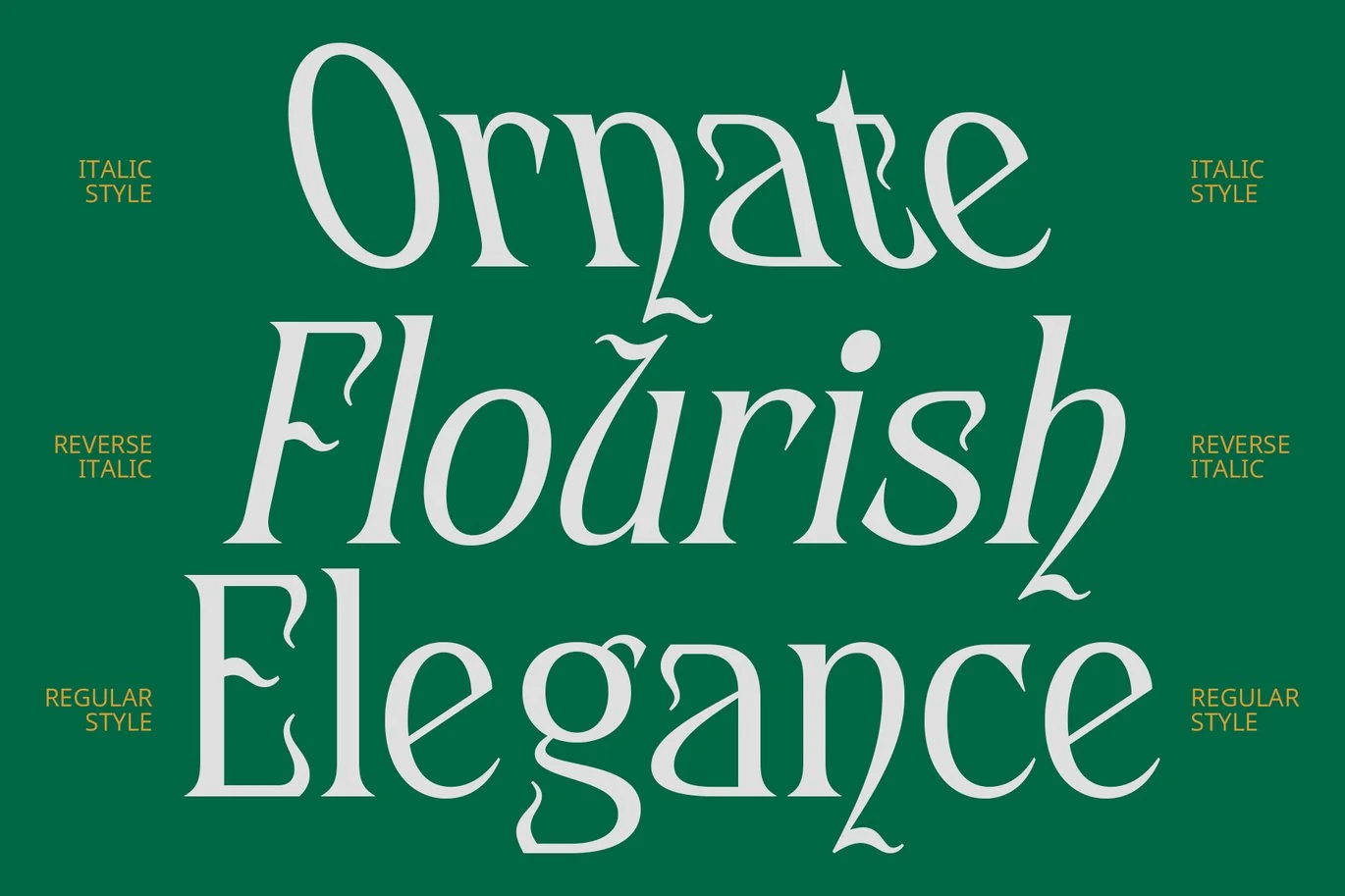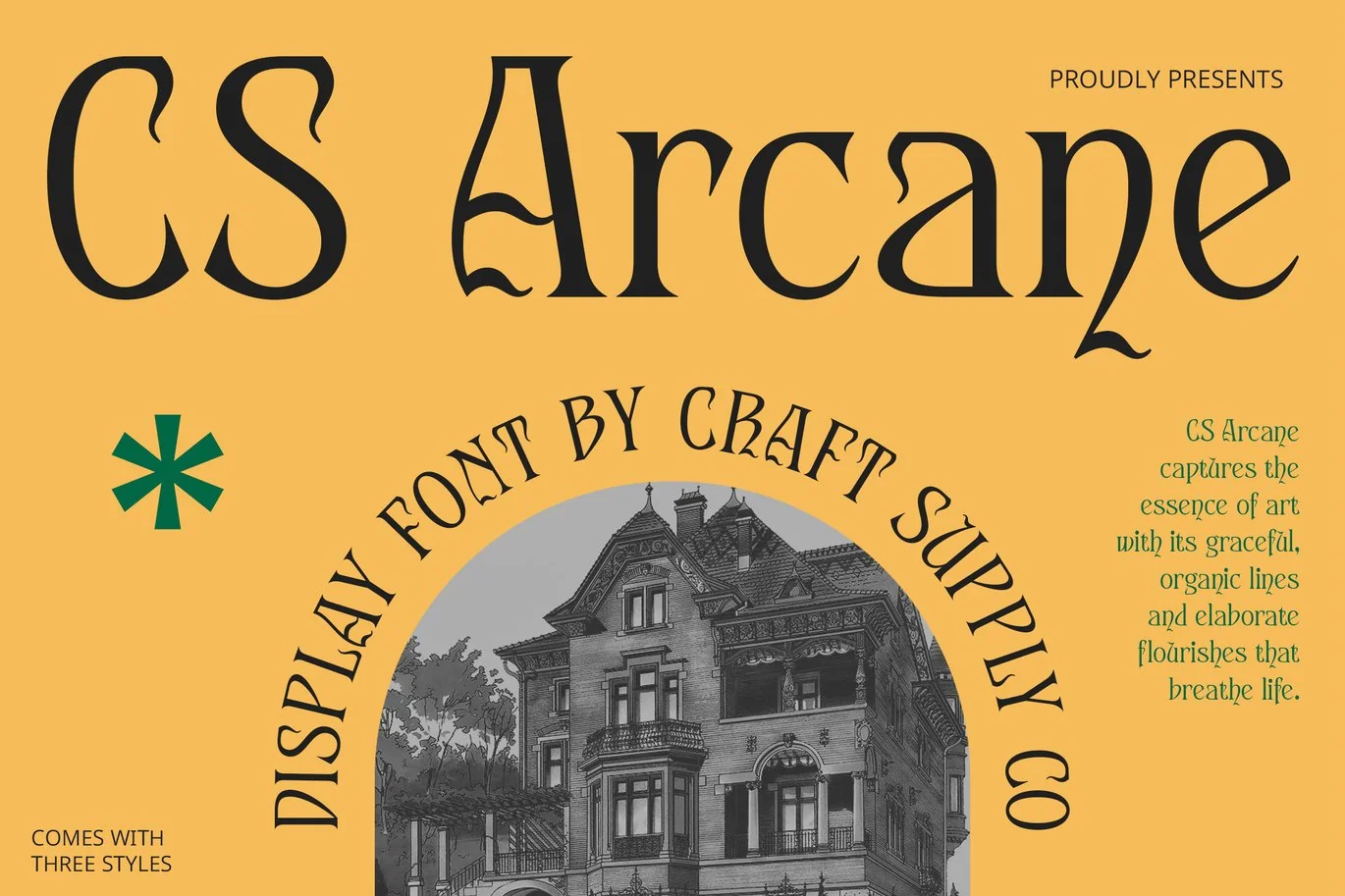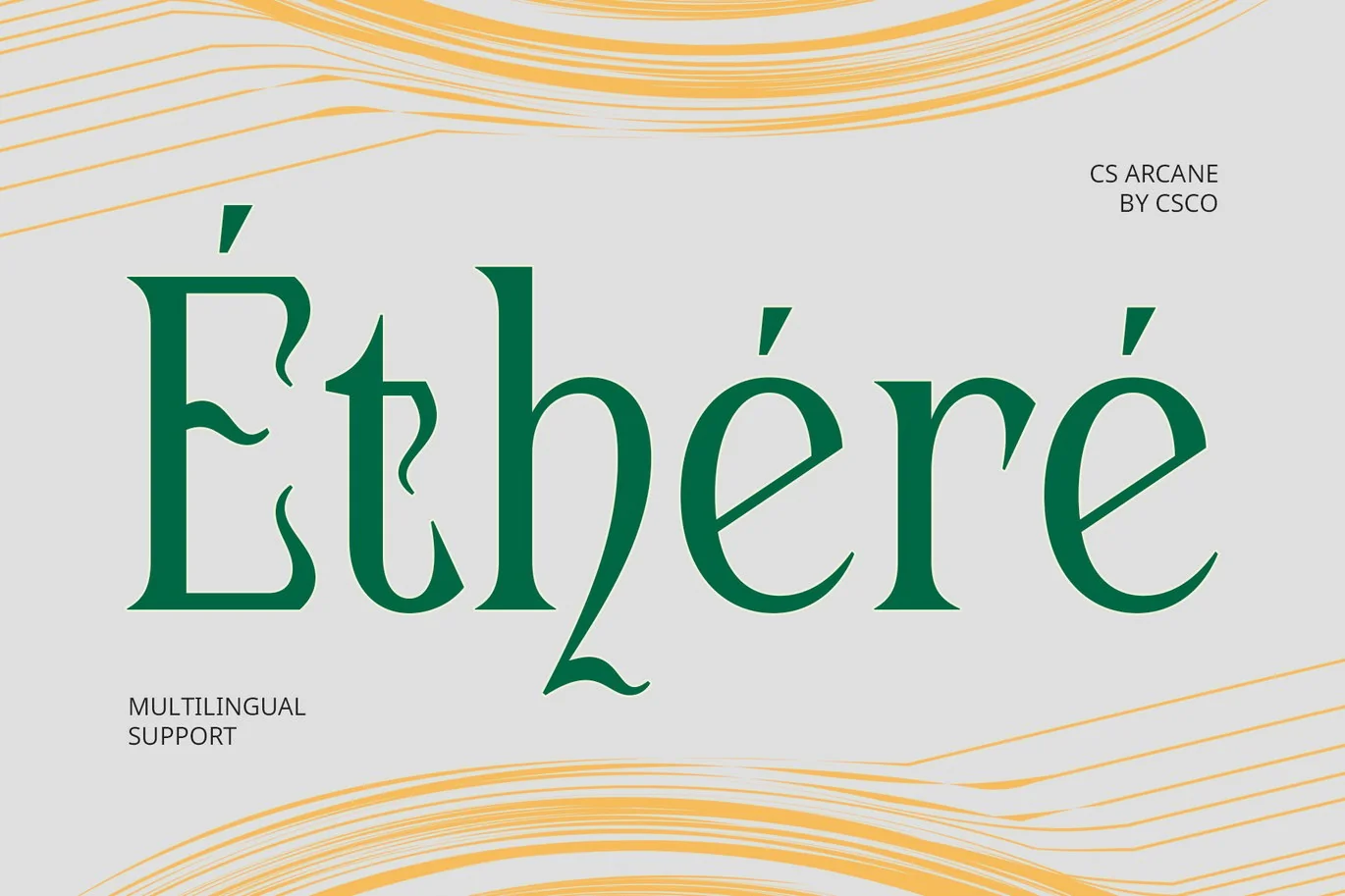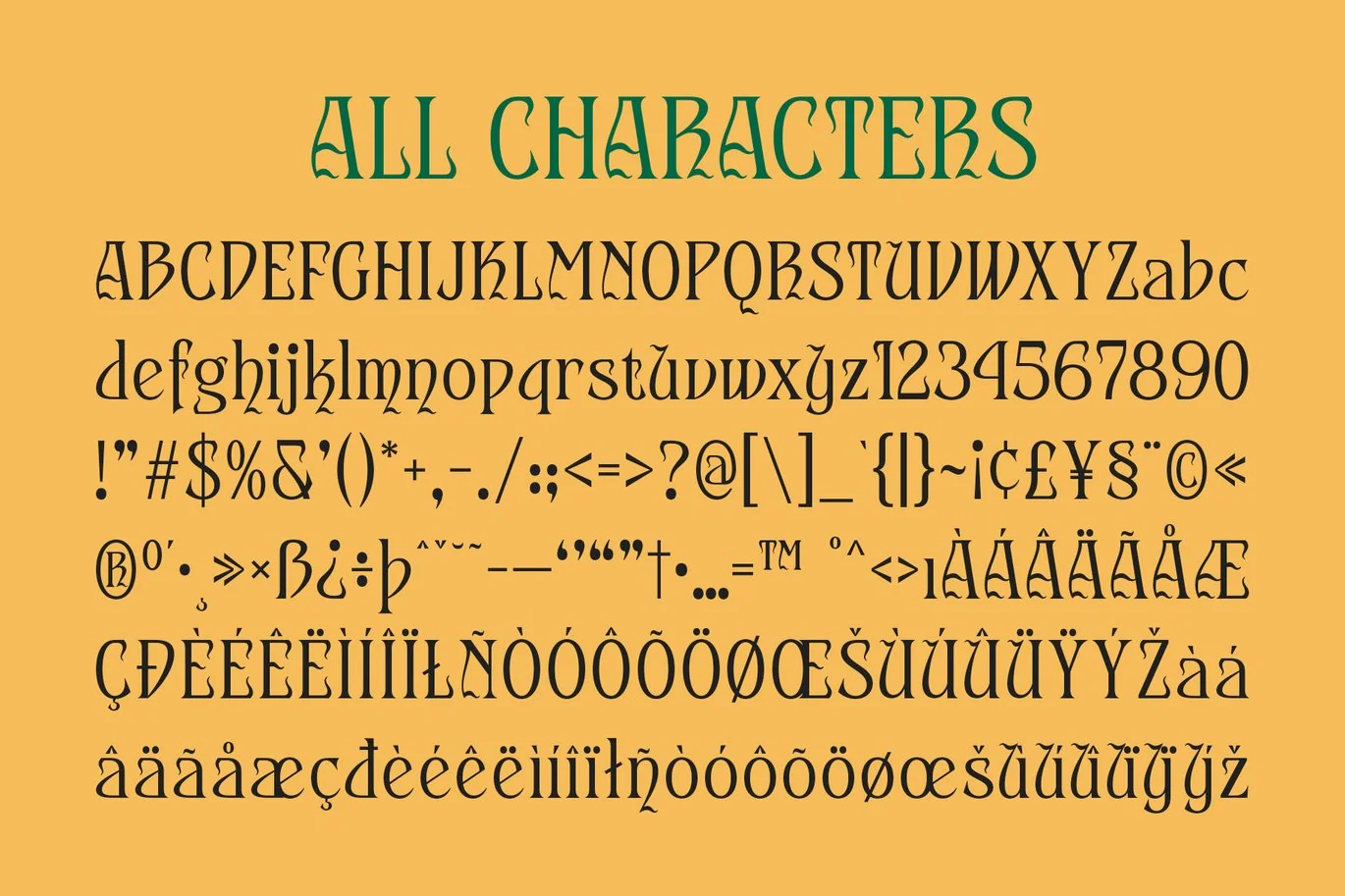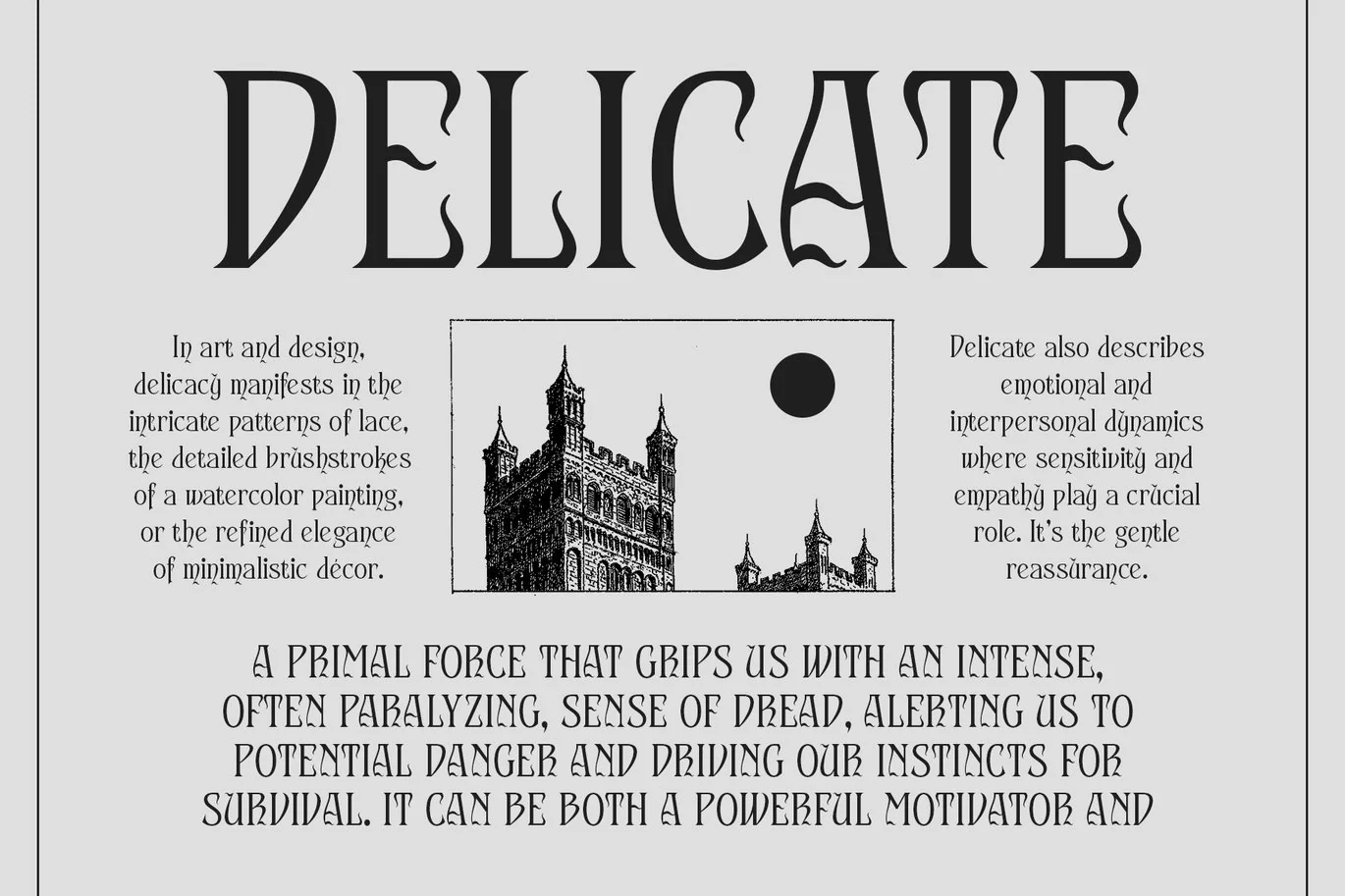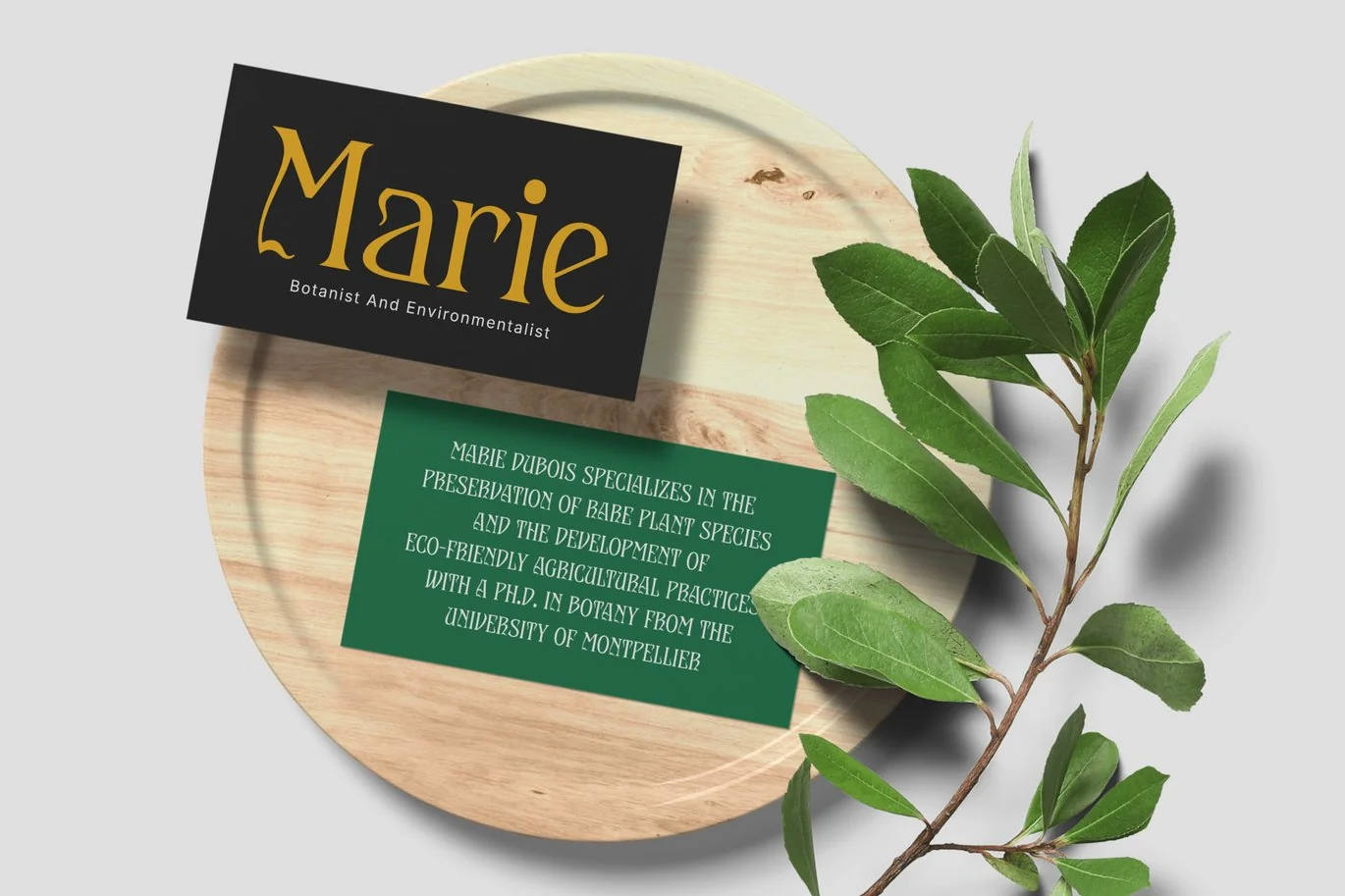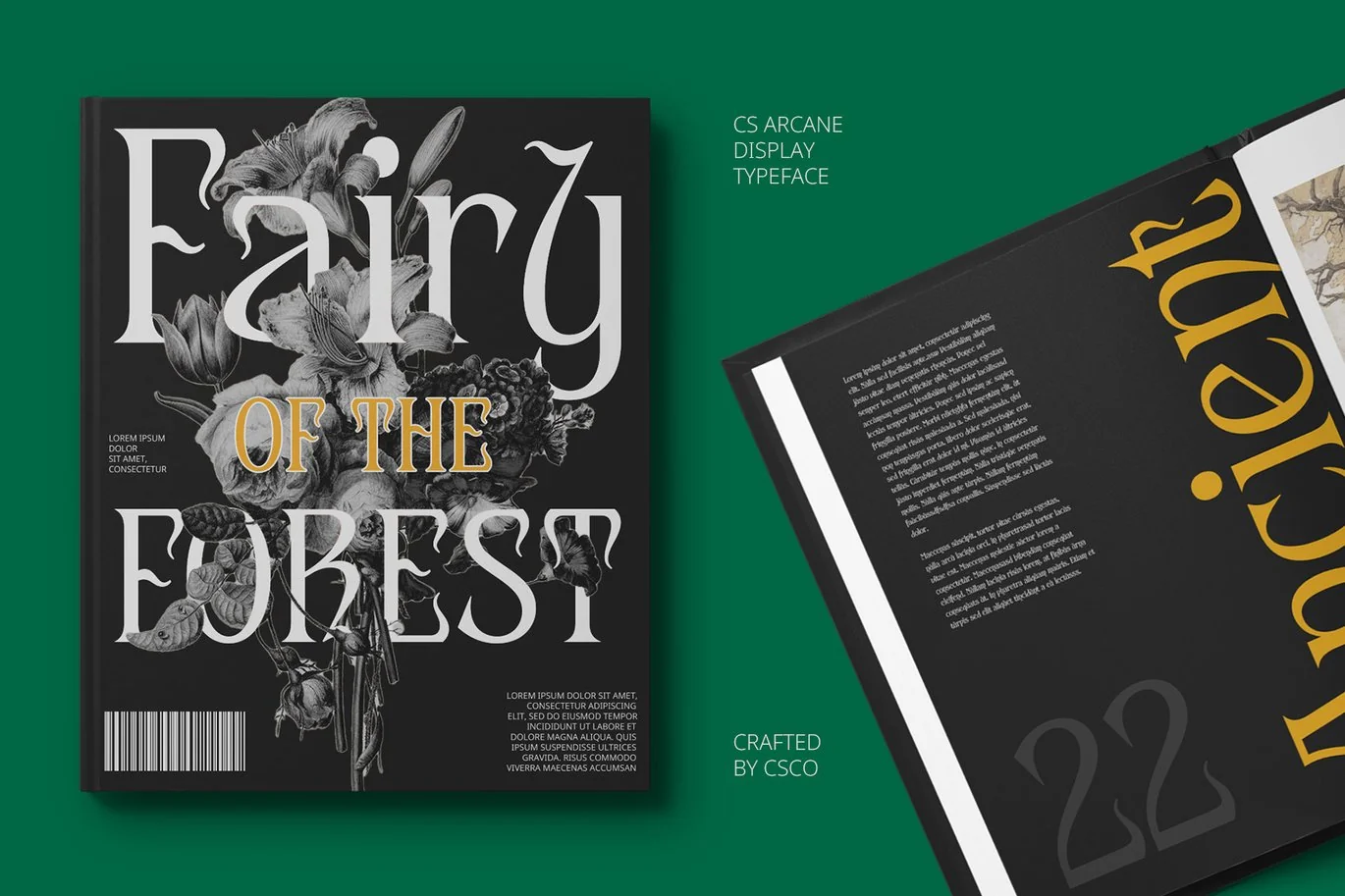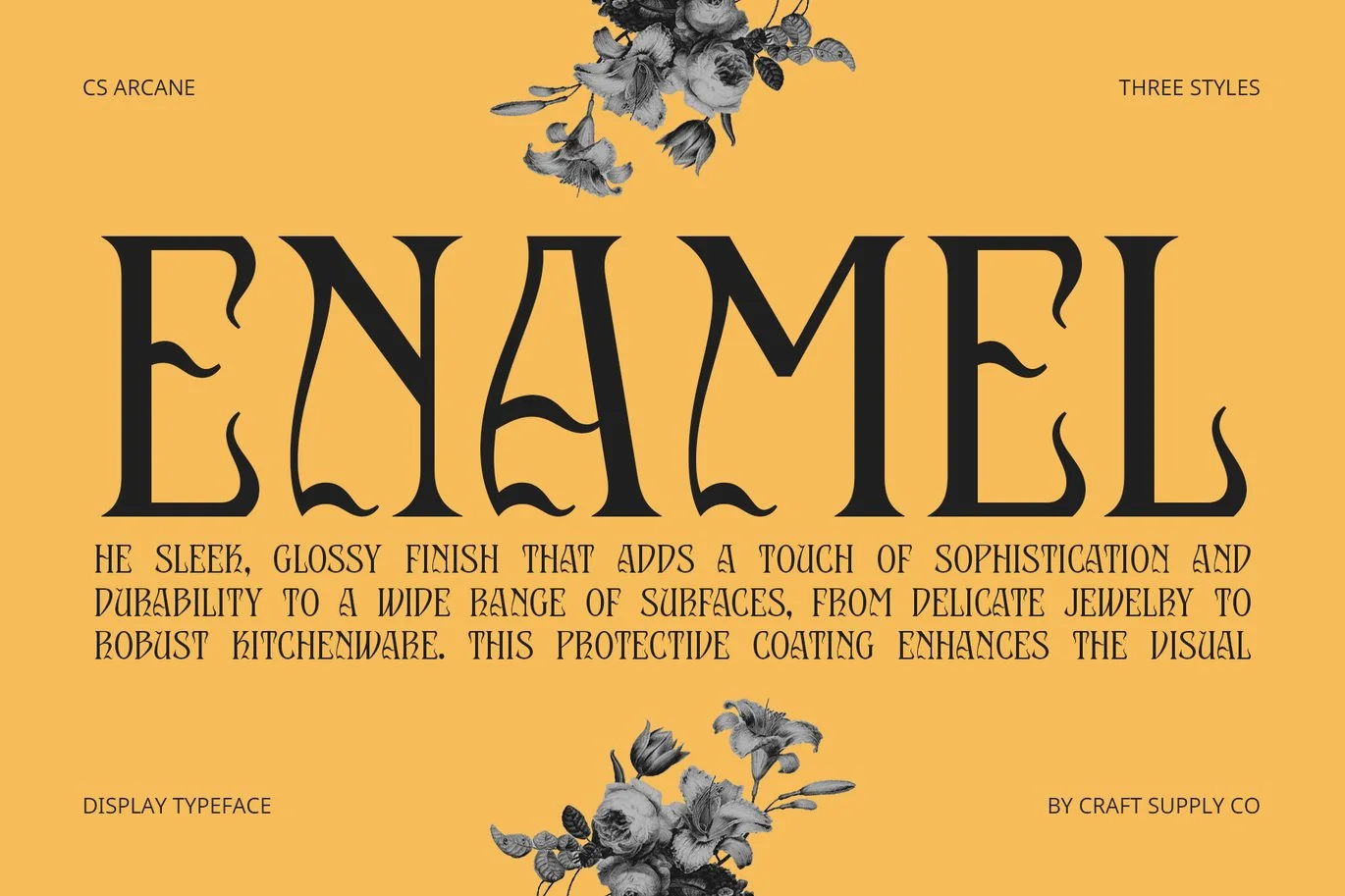
Arcane – Decorative Font
CS Arcane Font: Decorative Display Serif Font
Wavy Stroke Endings and Artistic Flair
CS Arcane is a decorative display serif font that stands out with its unique wavy stroke endings. This typeface features serifs with curved or undulating tips, creating a dynamic and artistic visual effect that exudes cheerfulness and expressiveness. Its creative design adds a playful and imaginative touch to any project, making it ideal for designs that need a distinctive and engaging character.
Cheerful and Expressive Design
The wavy stroke endings of CS Arcane convey a sense of movement and creativity, making it perfect for projects that aim to capture attention and evoke emotion. Its decorative elements add a layer of charm and personality, enhancing the visual appeal of headlines, book covers, posters, and promotional materials. The font’s expressive style ensures that it adds a unique and memorable touch to any design.
Perfect for Headlines and Creative Projects
CS Arcane excels in headlines and headers, offering strong visual impact and a distinctive character. Its dynamic and decorative design is ideal for projects that require a creative flair, such as promotional materials, book covers, and posters. With its cheerful and artistic appearance, CS Arcane is the perfect choice for adding a touch of creativity and uniqueness to your design projects.